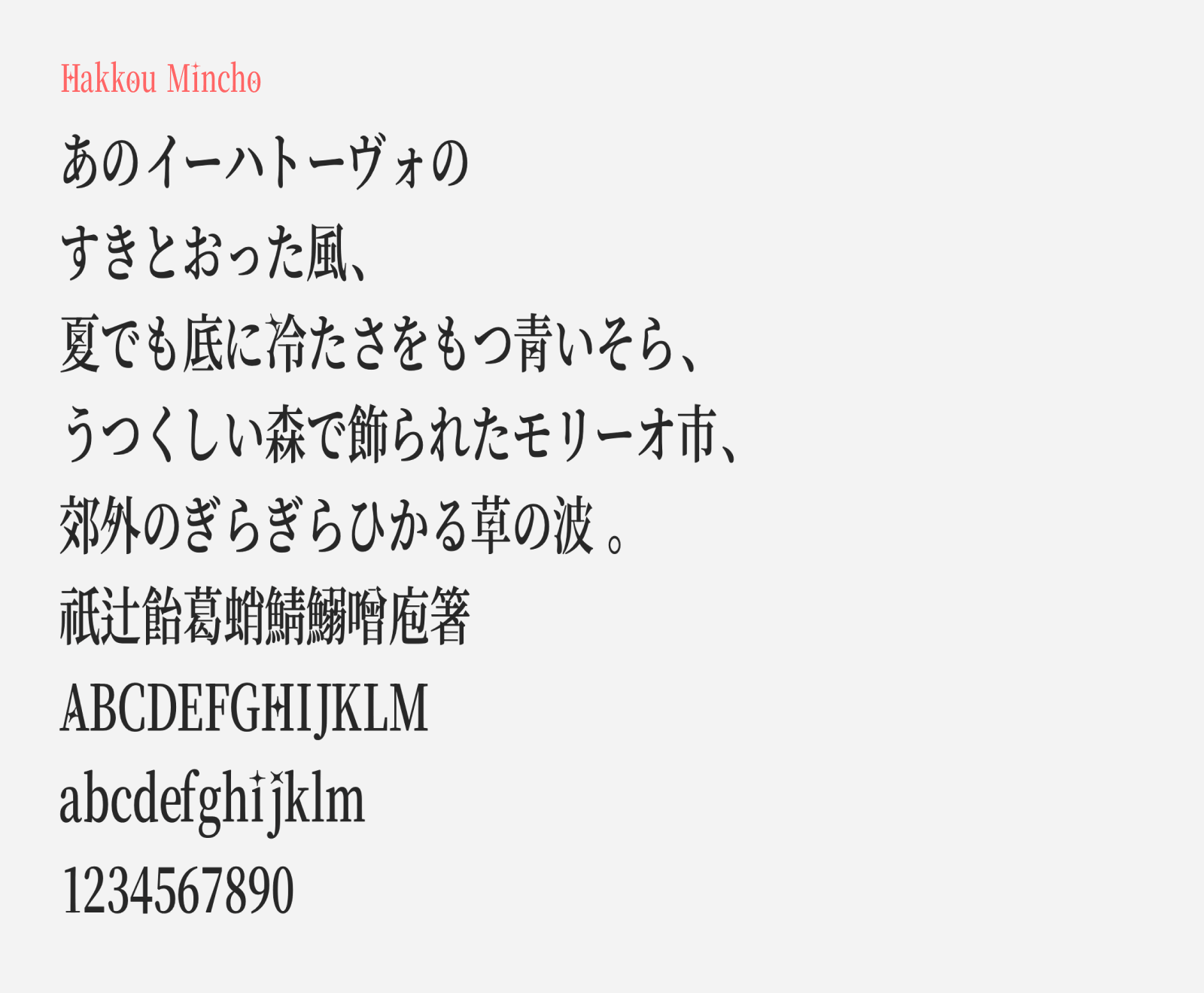
Hakkou Mincho
Hakkou Mincho (白光明朝) is a free mincho (serif) Japanese font derived from Noto Serif. Designed by designer named “lavsic”, The font takes the classic proportions of a traditional mincho and pushes them in an elegant new direction: horizontal strokes are thinned out and the overall form is stretched vertically, giving the characters a tall, graceful silhouette. Slit-like cutouts are introduced at certain points along the strokes, adding a lightness and airiness that makes the overall design feel almost ethereal.
What truly sets Hakkou Mincho apart is its defining decorative touch: star motifs are scattered throughout the character set, appearing on select glyphs at random to evoke a sparkling, fantastical atmosphere. It is a subtle flourish, but one that gives the font a distinctive personality suited to creative and imaginative projects. You can download this font for free and be used on commercial projects, and it was released under SIL Open Font License.